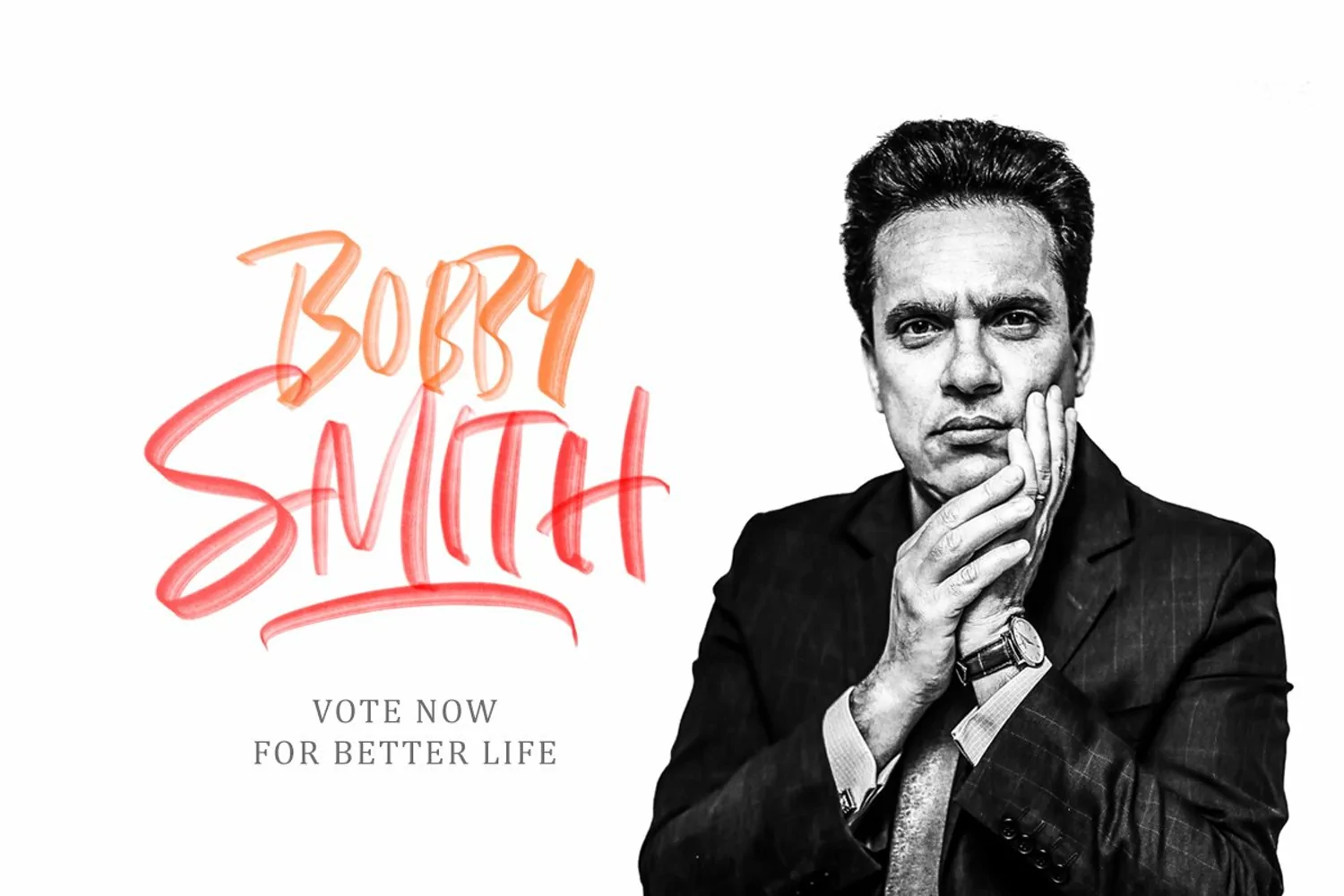
Edinburgh is handmade font that contains the newest font format, SVG, with two another format. You can use these fonts for various purposes such as making realistic handwriting, for promotions, or other purposes that will make your design more real as handmade. This font also contain ligatures and alternates.